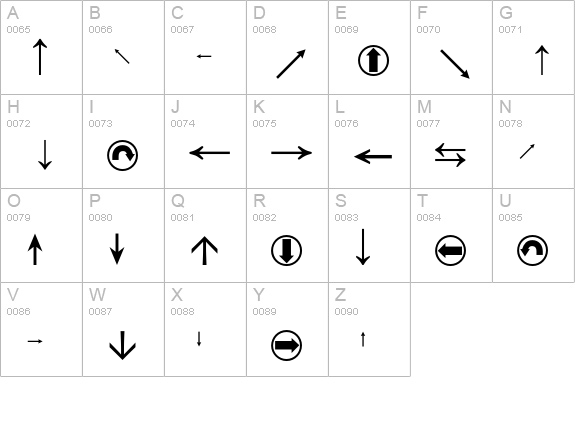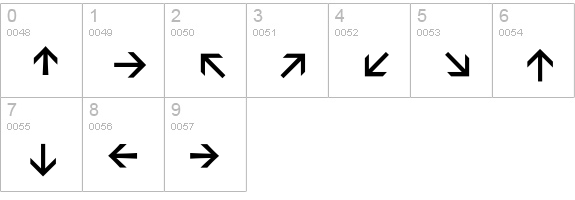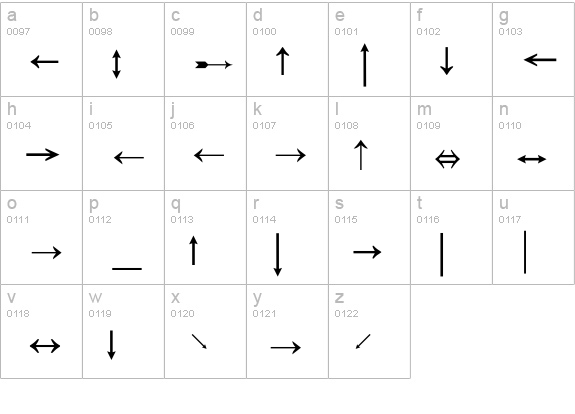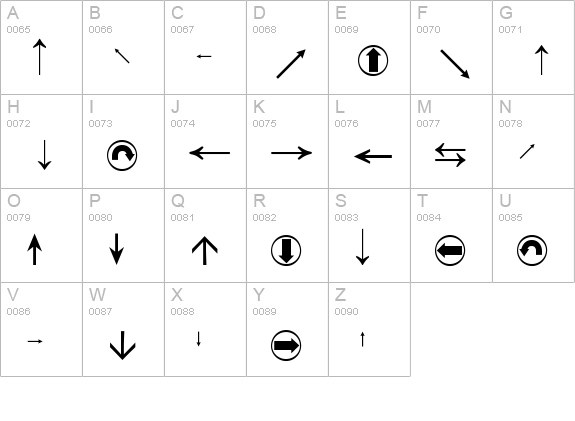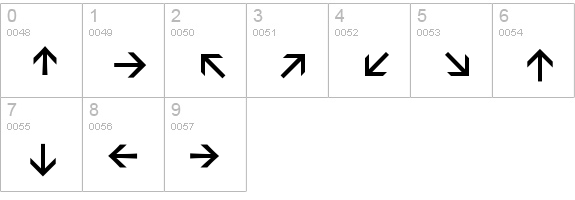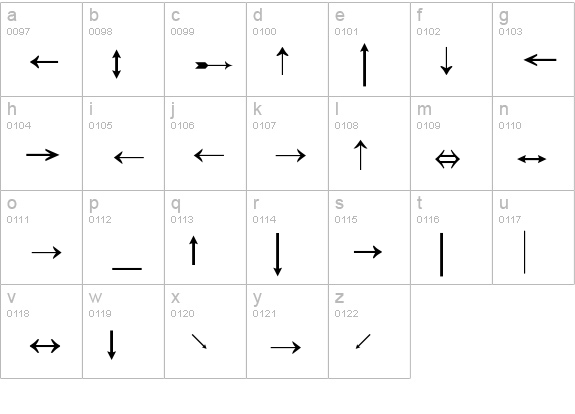
GeneralSymbolsP02 Font Details
GeneralSymbolsP02 font is a versatile and modern symbol font that features a wide range of unique and eye-catching symbols suitable for a variety of design projects. From arrows to shapes to icons, this font offers a diverse selection of symbols to enhance your designs. The clean and crisp design of GeneralSymbolsP02 font ensures that your symbols will stand out and make a statement. Best of all, this font is completely free to download at FontsMarket.com, making it easily accessible for all your design needs. Whether you're looking to add a touch of creativity to your website, presentation, or graphic design project, GeneralSymbolsP02 font is the perfect choice. Download it today and elevate your designs with these stylish and modern symbols.